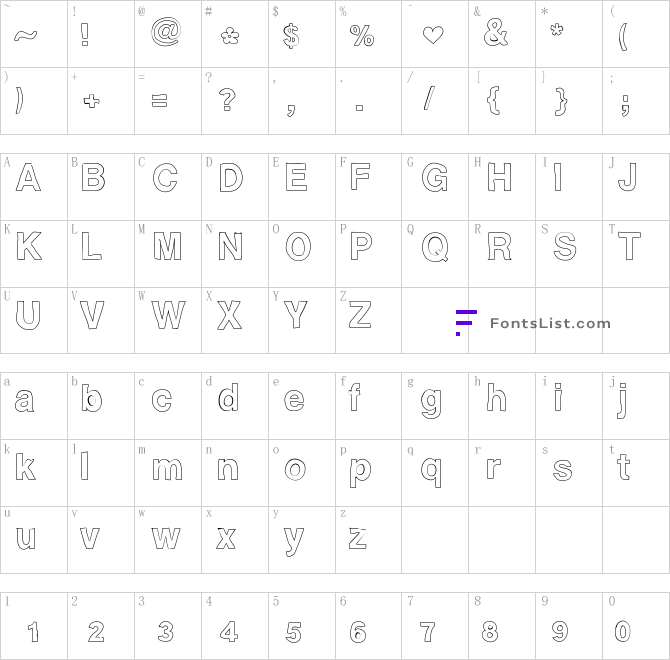
- Font Name:AshleysFont2
AshleysFont2.ttf is a very beautiful artistic font, AshleysFont2.ttf is widely used in the design and printing of various books and pictures,AshleysFont2.ttf has a strong visual impact,AshleysFont2.ttf is a commonly used font in newspapers, magazines and books, and is used in posters, e-commerce Poster design, store design, logo design, font design and other fields.AshleysFont2.